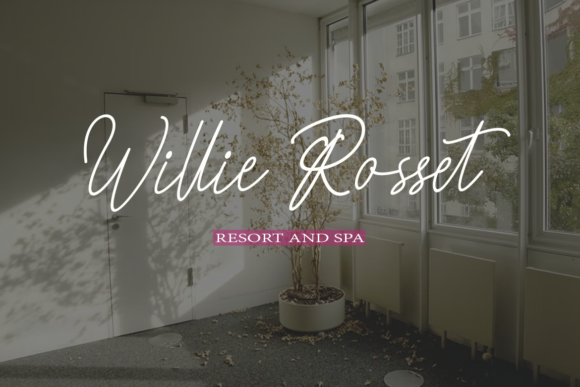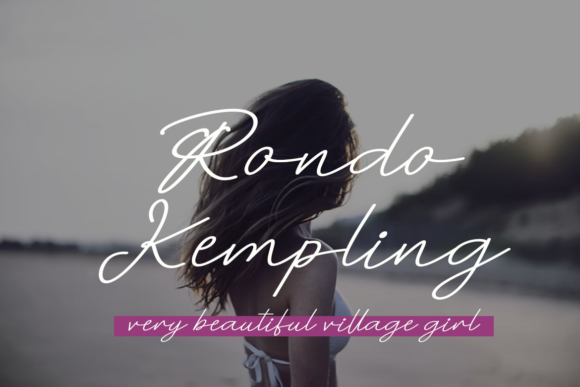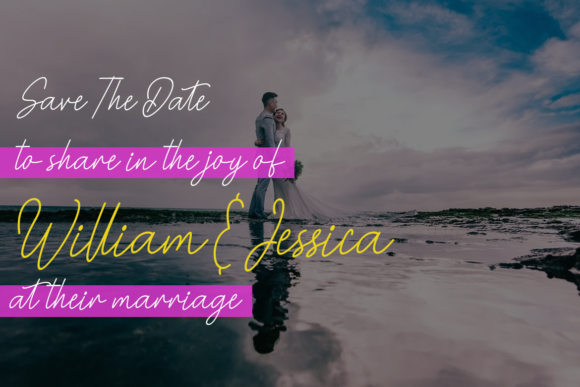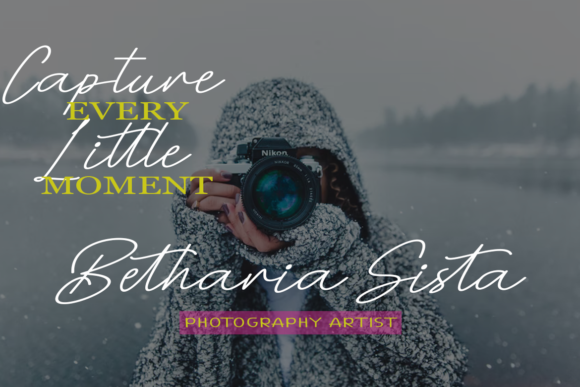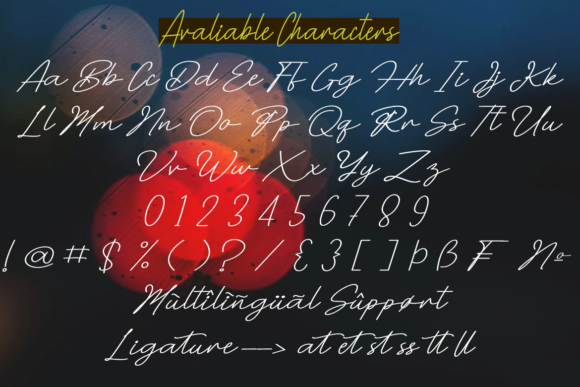
Easter Signature Font
About Easter Signature Font
Easter is a stylish and delicate script font. It has a clean, thin and smooth vibe and it will be a hit for any design that you want to add it to.